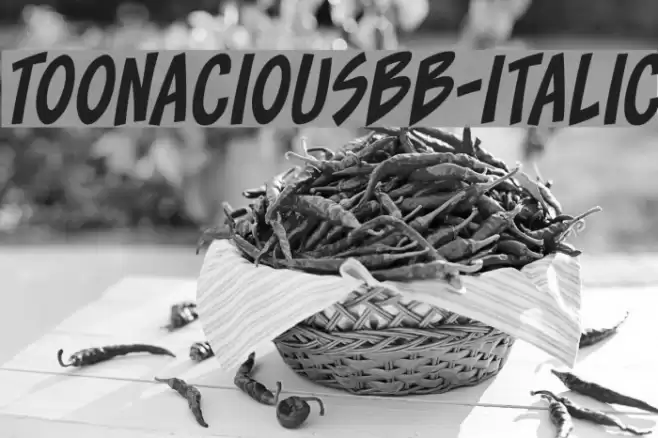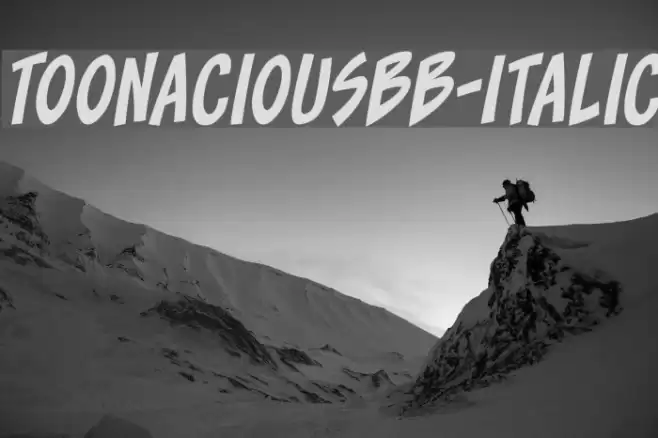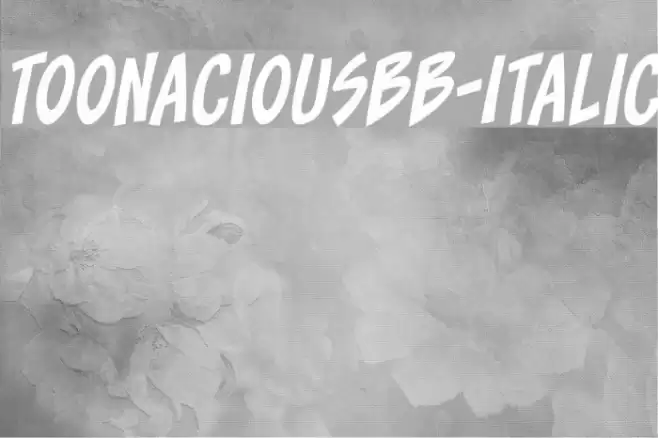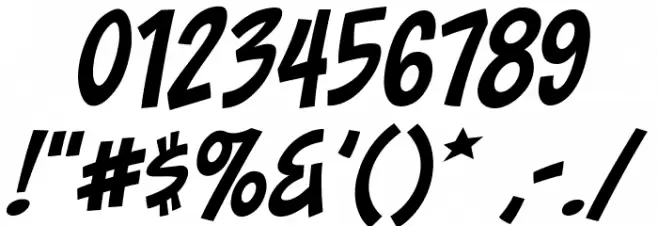
ToonaciousBB-Italic Font
ToonaciousBB-Italic Description
This playful and energetic font features a bold, italicized style that exudes a sense of fun and movement. The letters are slightly slanted, giving them a dynamic appearance, while the bold strokes ensure high visibility and impact. The characters have a cartoonish flair, with exaggerated curves and angles that add a whimsical touch. This font is perfect for projects that require a lively and informal tone, making it ideal for children's books, comics, and playful branding. The numbers and special characters maintain the same energetic style, ensuring consistency across all text elements.
A bold, italicized font with a playful, cartoonish style from Uncategorized fonts.
- Proposed Projects: Ideal for children's books, comics, playful branding, and informal designs.
- Overall Style: Playful, Cartoonish